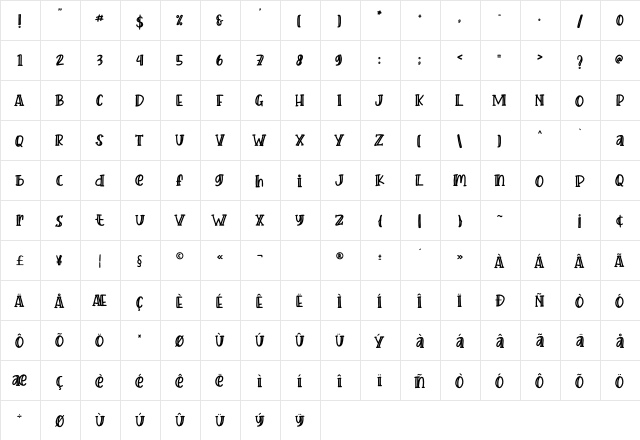
Crafter Regular
| Designer | Sigit Dwipa Raharjo |
Design Context for Crafter Typeface
Crafter is a composed and adaptable typeface that performs quietly and consistently across a wide range of design contexts.